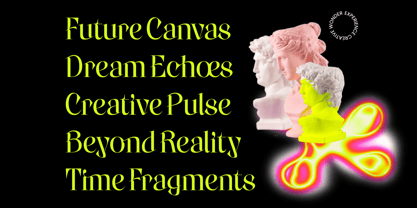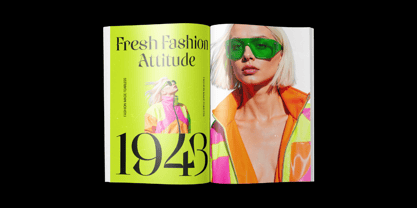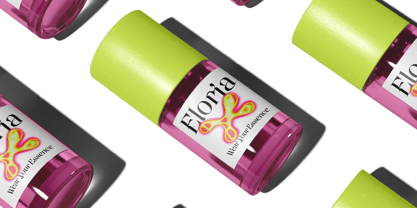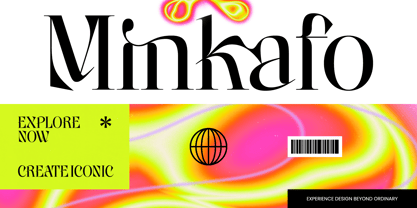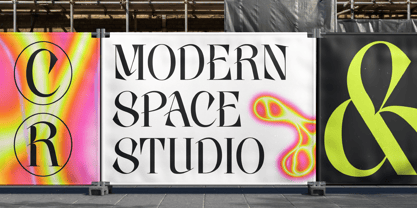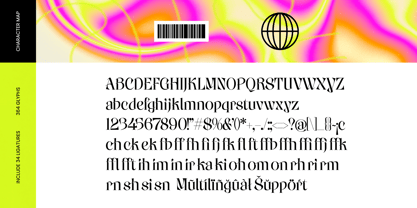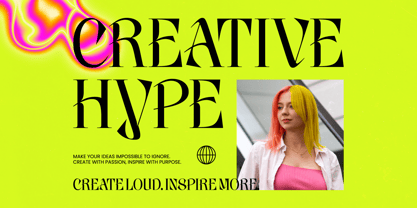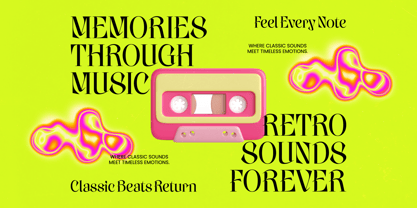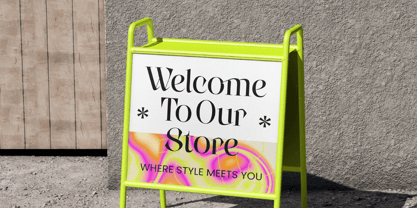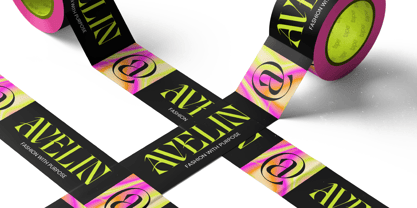
Minkafo
par Timelesstype Studio
La famille de polices Minkafo a été conçue par Heru Utama Putra et publiée par Timelesstype Studio. Minkafo contient 2 styles et options de package familial. En savoir plus sur cette famille
Elevate your design projects with a touch of modern sophistication through this masterfully crafted typeface. Minkafo - Serif Display Font represents the pinnacle of high-contrast serif design, blending sharp, refined edges with an elegant silhouette that commands attention. Its timeless aesthetic ensures your layouts remain stylish and relevant, providing a premium look that resonates with high-end audiences and design connoisseurs alike.